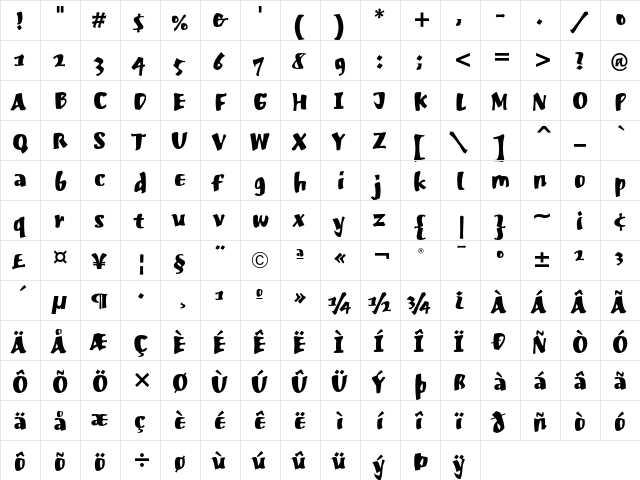
Musclehead ITC Regular
Design Context for Musclehead ITC Typeface
Musclehead ITC is a composed and adaptable typeface that performs quietly and consistently across a wide range of design contexts.
Pro Tip: Use Musclehead ITC in both headline and body roles to test its range before committing to a single application.